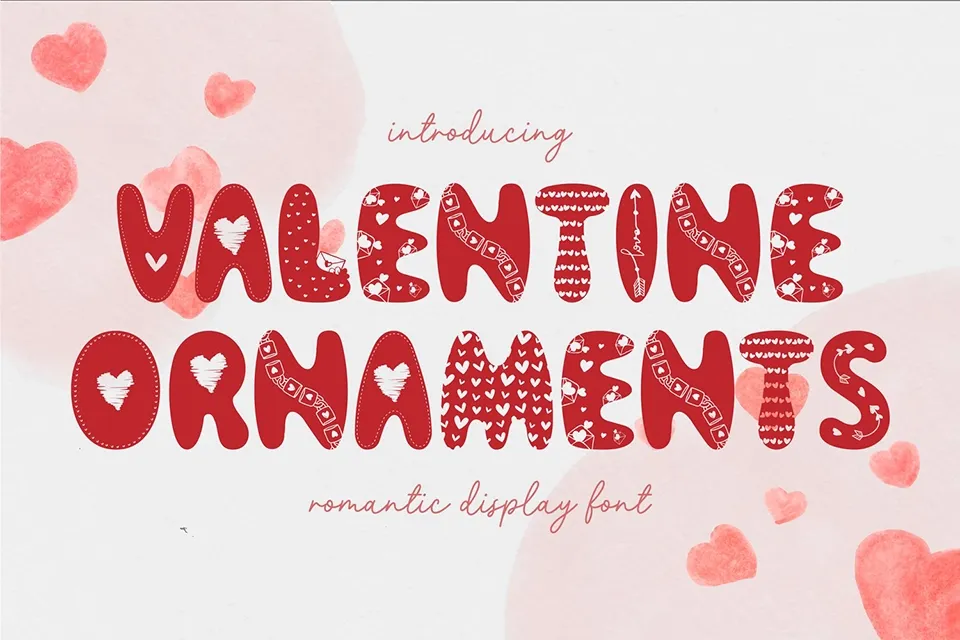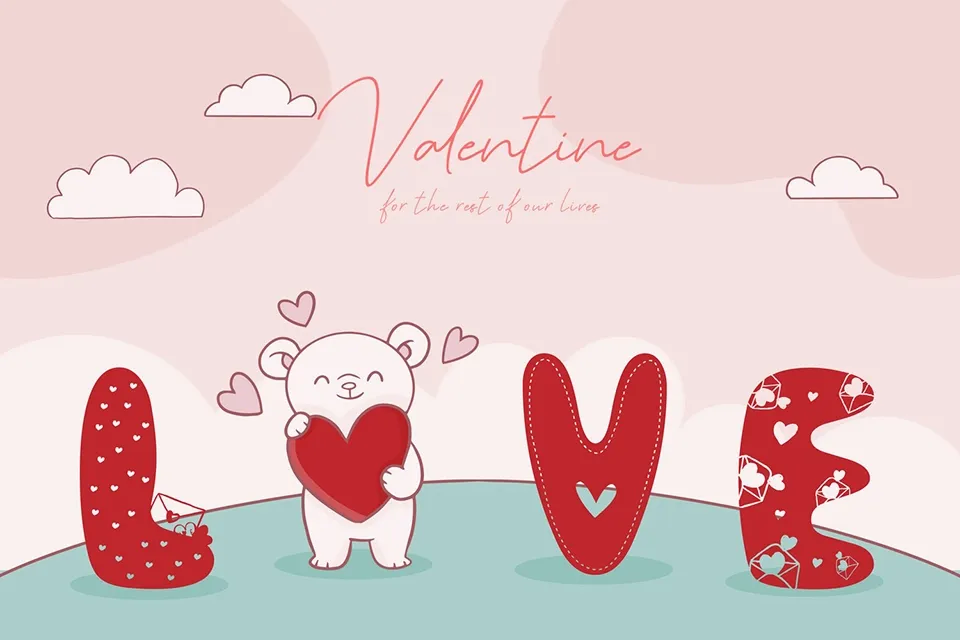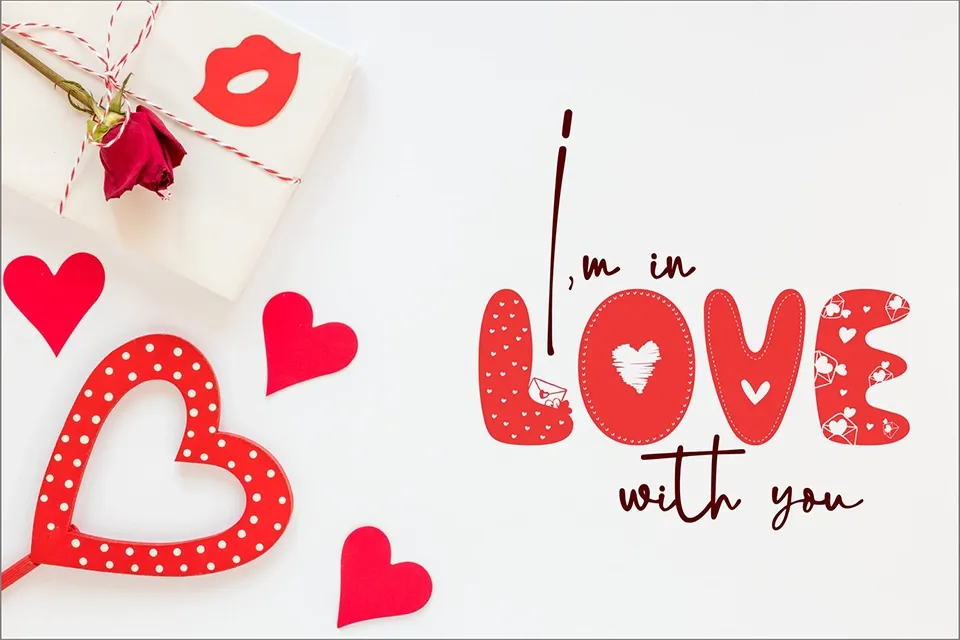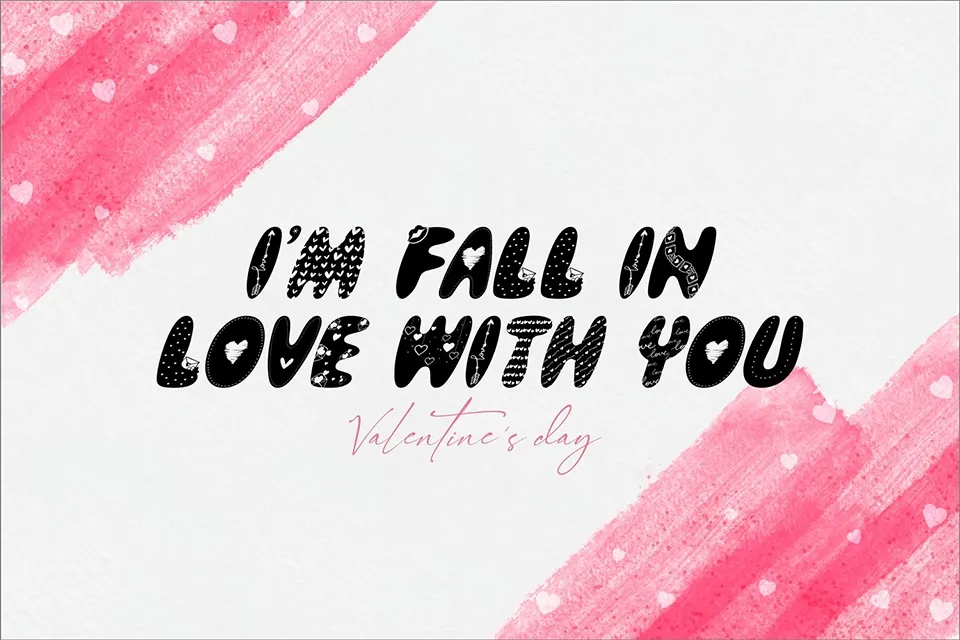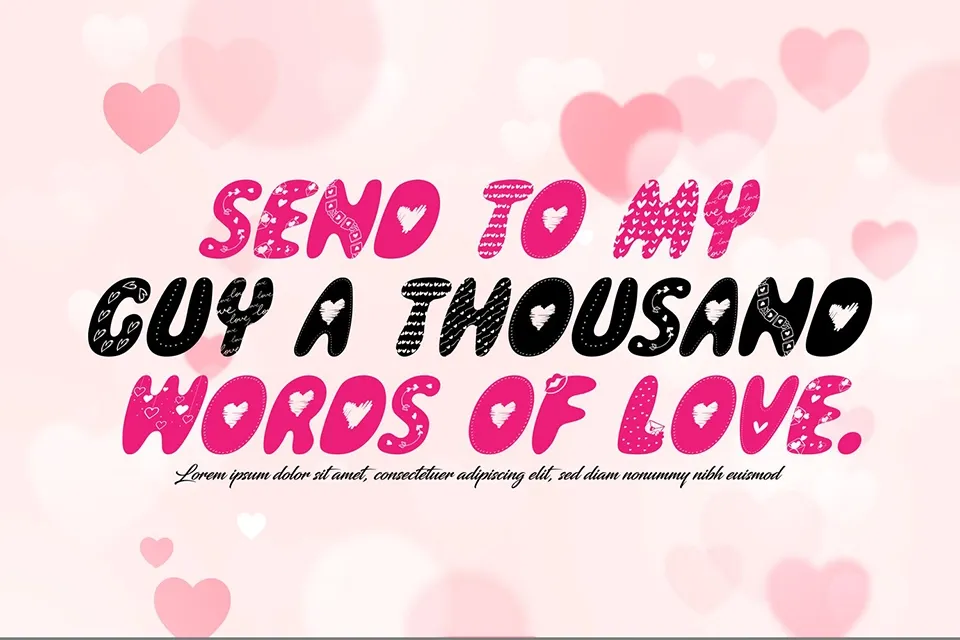
Valentine Ornaments Font
Valentine Ornaments is a romantic display font designed to capture the spirit of Valentine’s Day. Its defining feature is the bold, rounded letterforms filled with intricate, hand-drawn patterns and ornaments – including hearts, arrows, and love letters. This gives the font a playful, whimsical, and distinctly decorative appearance. Perfect for crafting personalized greeting cards, decorations, social media posts, or any design project requiring a cute, festive, and love-themed touch. Valentine Ornaments adds a unique, pattern-rich charm to express affection visually.